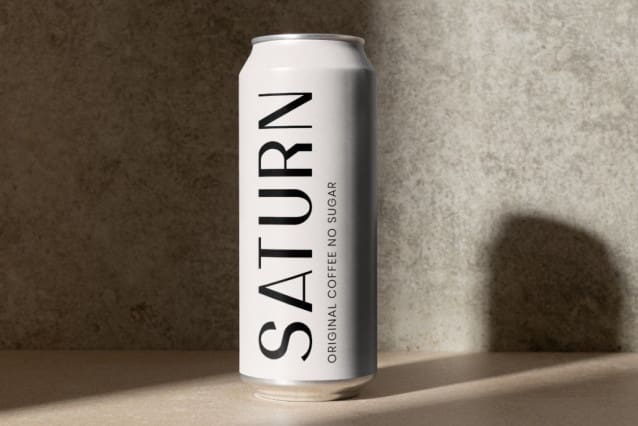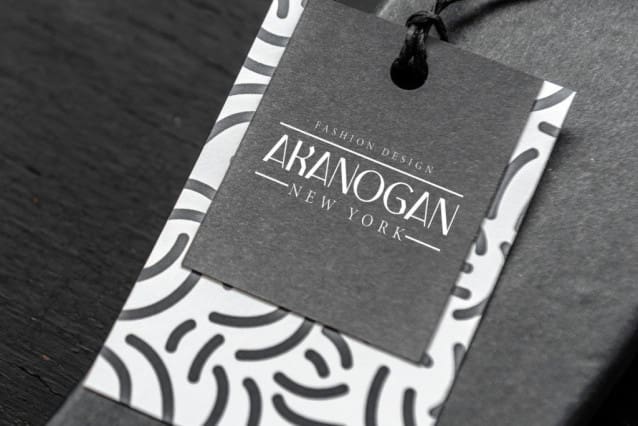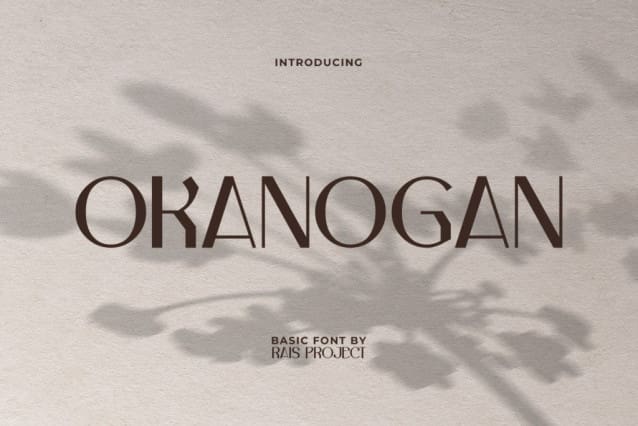
Okanogan Font
Okanogan Font is a unique serif display font designed by RaisProject. This font has an aesthetic basic display font. This font has a unique shape with abstract modern styles. It will be good for any designs, such as brand image, cover, custom design, flyer, invitation, label, marketing material, menu, poster, product packaging, quote, signage, stationery, website page, and more!
Okanogan Font includes a full set of ALL CAPS for Uppercase and Lowercase Letters, Numerals, and large range of Punctuation. This stylish font will be suitable for various industries, such as accessories, advertising, cafe, barber shop, even or festival, fashion brand, marketing, movie, printing, publishing, restaurant, etc.